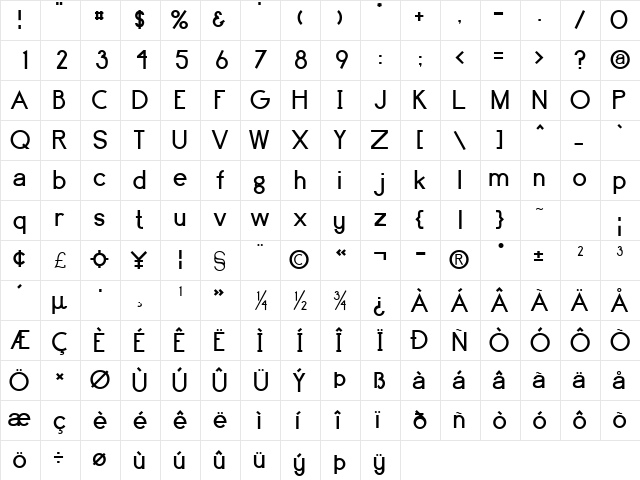
ArtiosSSK Regular
Design Context for ArtiosSSK Typeface
ArtiosSSK offers clean, dependable letterforms without strong stylistic allegiance, making it a practical choice for designers who need flexibility.